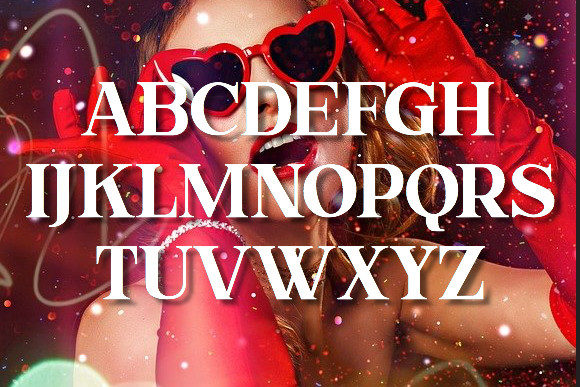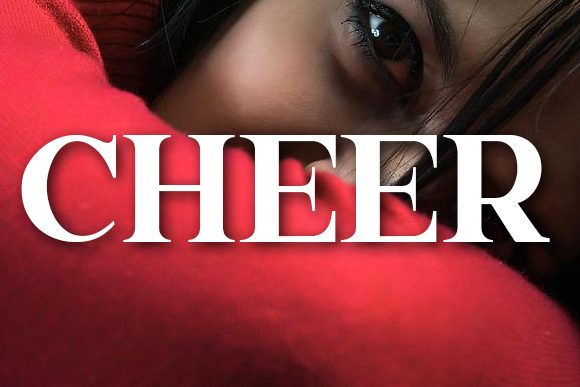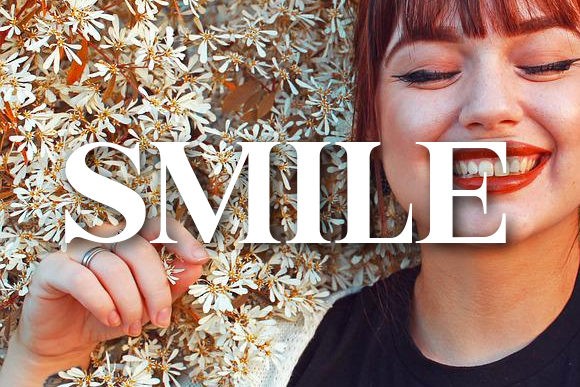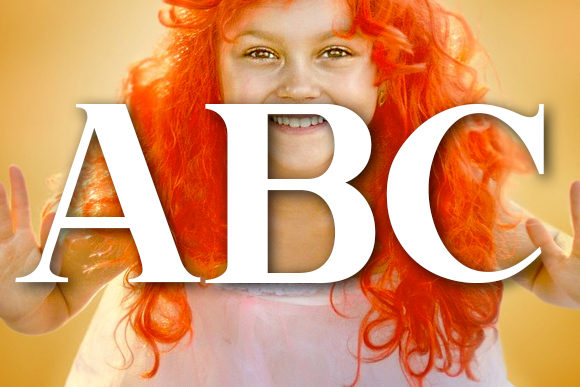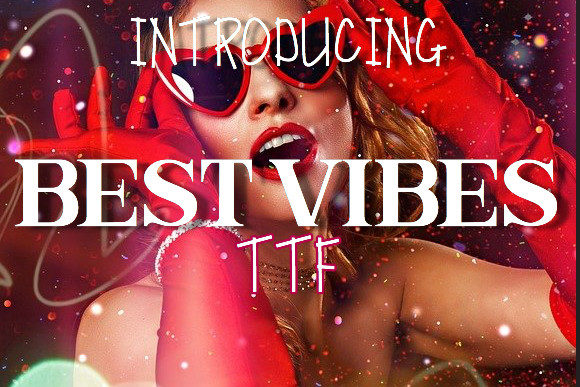
Discover the Best Vibes Font: Elevate Your Designs with Elegance and Sophistication
Are you tired of using the same old fonts for your branding projects? Look no further! Introducing the Best Vibes Font, an awesome and elegant serif font that is perfect for adding a touch of sophistication to your designs. Whether you’re working on a logo, t-shirt printing, or creative products, this font is sure to make your project stand out.
What Makes Best Vibes Font So Special?
The Best Vibes Font is a carefully crafted serif font that exudes elegance and refinement. Its classic design makes it perfect for a wide range of applications, from traditional branding projects to modern creative endeavors. Here are just a few reasons why Best Vibes Font is a cut above the rest:
- Elegant Design: The Best Vibes Font features a sophisticated serif design that adds a touch of luxury to any project.
- Versatile: This font is perfect for a wide range of applications, including logos, t-shirt printing, creative products, and more.
- Highly Readable: The Best Vibes Font is designed to be highly readable, even at small sizes, making it perfect for body text and headlines.
- Unique Character: The font’s unique character and charm make it perfect for adding a personal touch to your designs.
Whether you’re a professional designer or a crafter looking to add a personal touch to your projects, the Best Vibes Font is the perfect choice. Here are just a few ways you can use this amazing font:
- Logo Design: Create a lasting impression with a custom logo that features the elegant Best Vibes Font.
- T-Shirt Printing: Add a touch of sophistication to your t-shirt designs with this highly readable and stylish font.
- Creative Products: Use the Best Vibes Font to add a personal touch to your creative products, such as stickers, washi tape, and more.
Why Choose Best Vibes Font?
With so many fonts to choose from, why should you choose Best Vibes Font? Here are just a few reasons why this font stands out from the crowd:
- Unique Design: The Best Vibes Font features a unique and elegant design that will set your project apart from the rest.
- High-Quality: This font is designed to be high-quality and highly readable, making it perfect for a wide range of applications.
Are you ready to take your designs to the next level? With the Best Vibes Font, you can add a touch of elegance and sophistication to your projects. Whether you’re working on a branding project, t-shirt design, or creative product, this font is sure to make a lasting impression.